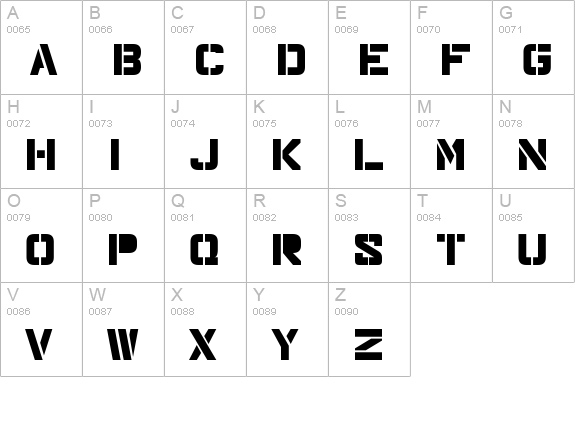
Major Snafu Font Details
Introducing Major Snafu font, a stunning display typeface that brings a touch of creative chaos to your designs. With its bold and quirky letterforms, Major Snafu is perfect for adding a playful and unconventional flair to any project. This font exudes a sense of adventure and spontaneity, making it an ideal choice for branding, logo design, headlines, posters, and more. Its distinctive characters captivate the eye and leave a lasting impression, ensuring your message stands out from the crowd. But that's not all – Major Snafu font is not only visually captivating, but also conveniently free! Yes, you read that right. This incredible font is freely available for download at FontsMarket.com. Now you can embrace the creativity and charm of Major Snafu without any restrictions or additional costs. Whether you're a professional designer looking to elevate your work or an enthusiast seeking to add a dash of personality to personal projects, Major Snafu font is the perfect choice. Its versatility and unique design make it suitable for a wide range of applications, allowing you to explore endless creative possibilities. So why wait? Download Major Snafu font today from FontsMarket.com and let your imagination run wild. Unleash the power of this captivating typeface and watch as it effortlessly enhances your designs with its bold, unconventional style. Embrace the chaos and make a statement with Major Snafu font – the must-have font for those who dare to be different.